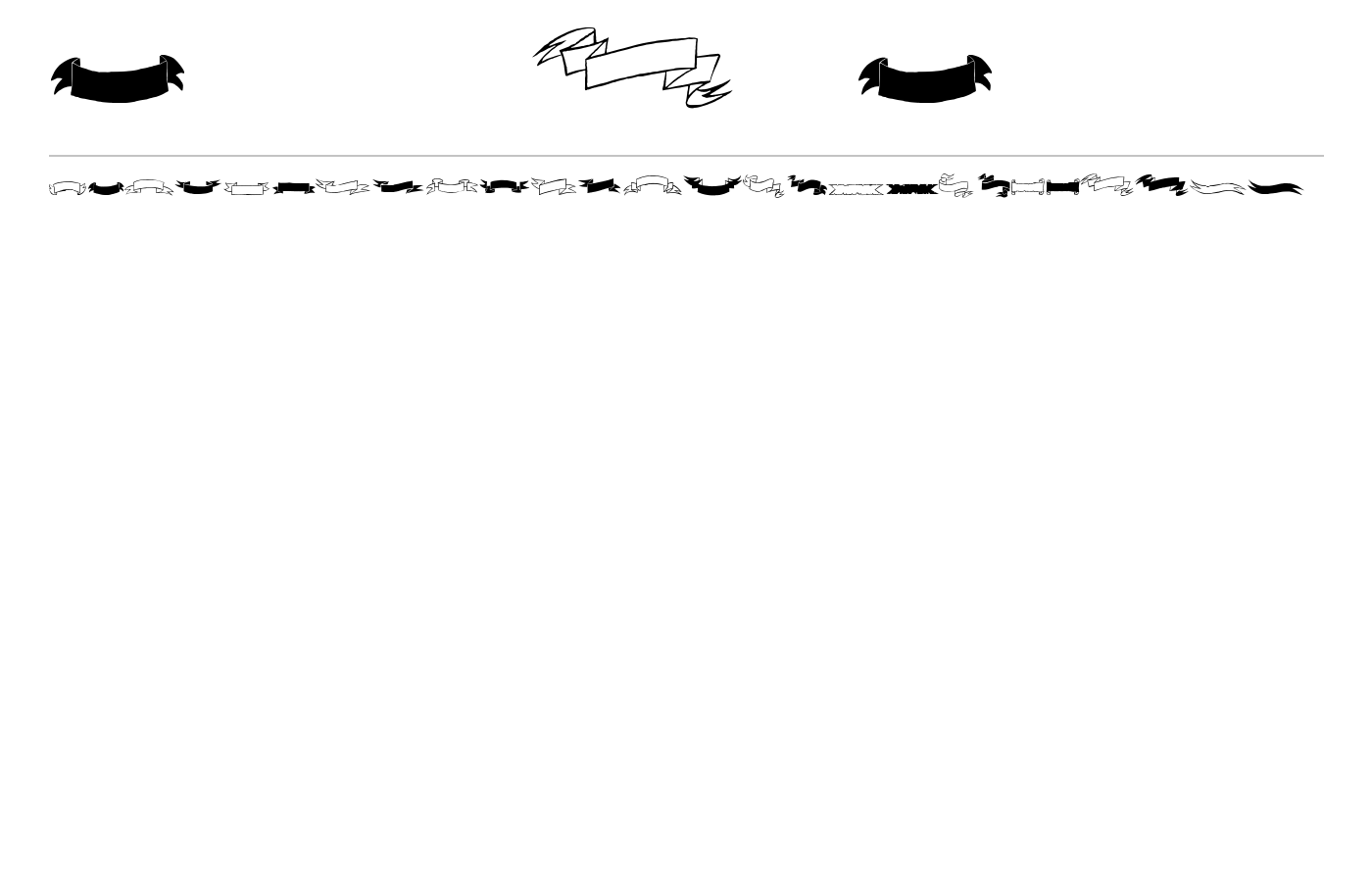
Black & White Banners Font is a decorative, artistic display typeface featuring a variety of classic ribbon and banner shapes in solid black or outlined styles. Its bold, vintage-inspired look makes it perfect for adding a fun, nostalgic touch to posters, logos, and packaging, especially when a handcrafted, eye-catching design is desired. This font works well in creative branding or editorial projects that need decorative elements to stand out.
Black & White Banners Font
About Black & White Banners Font
| Font family | Black & White Banners Font |
| Designer | IMAGEX |